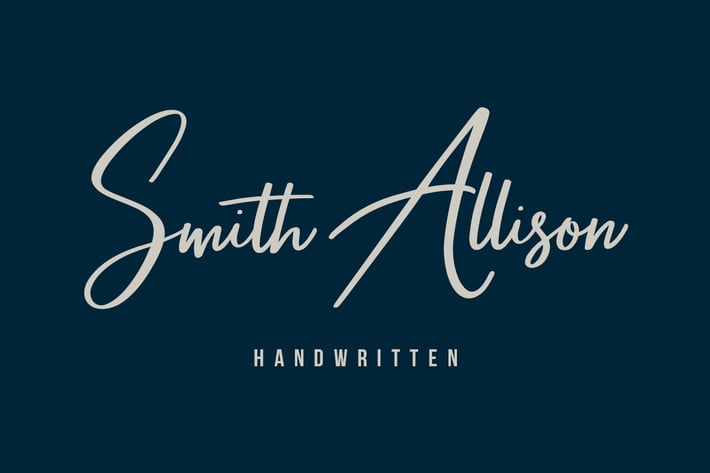
Smith Allison Signature Font
Give your designs an authentic handcrafted feel. “Smith Allison Signature Font” is perfectly suited to stationery, logos and much more.